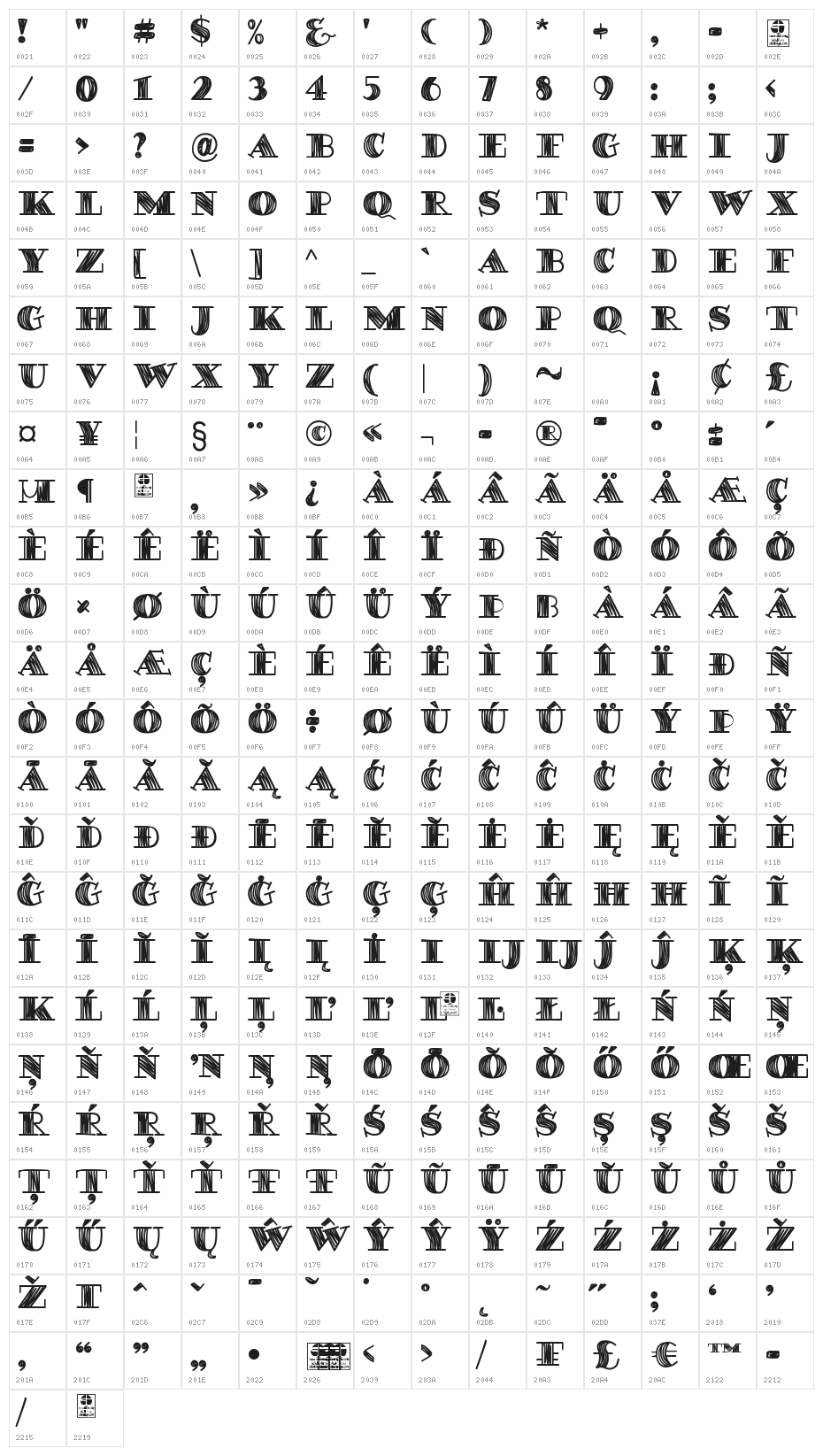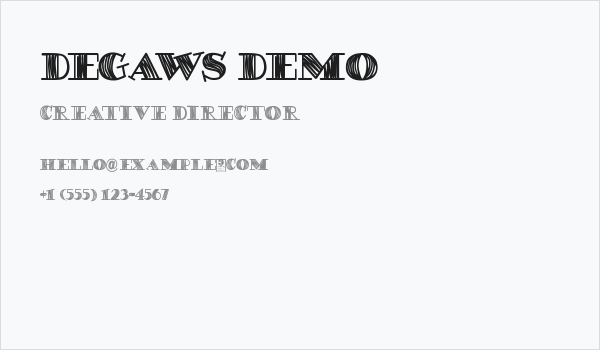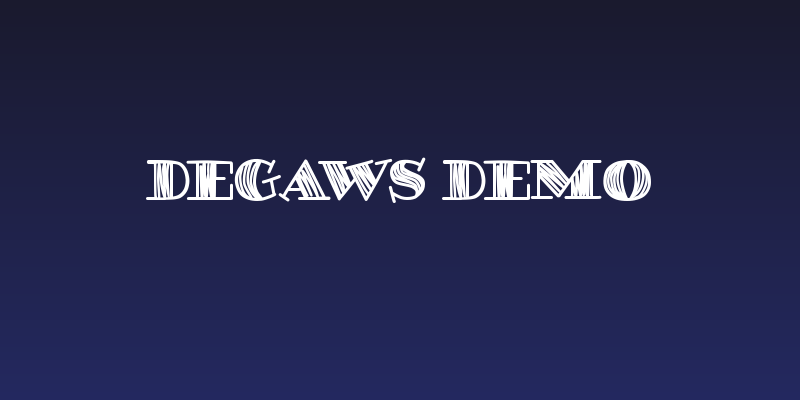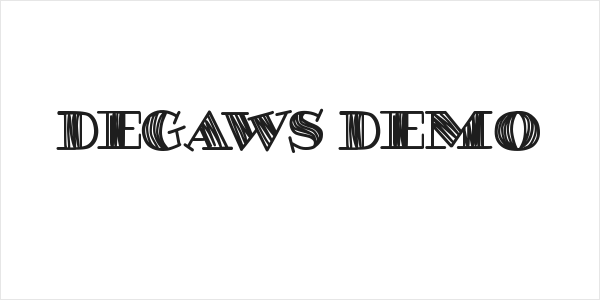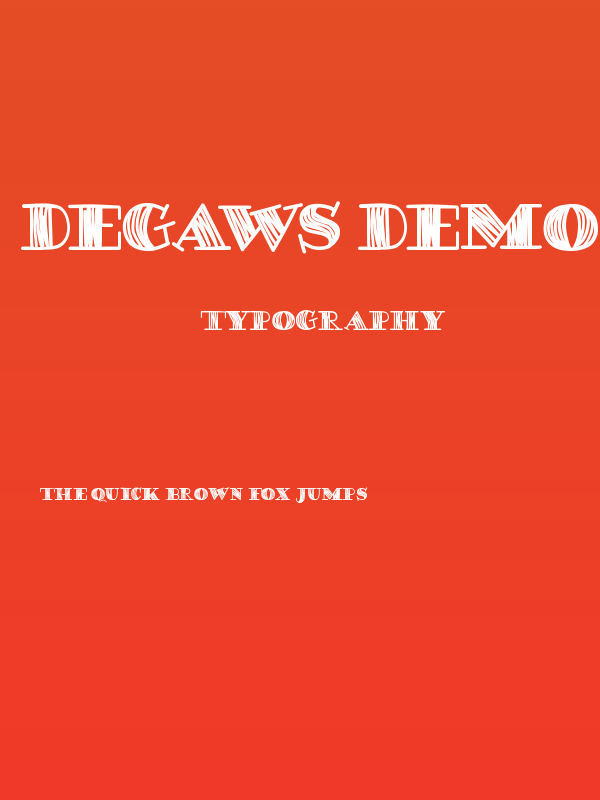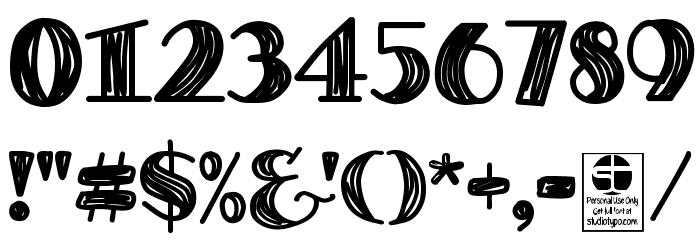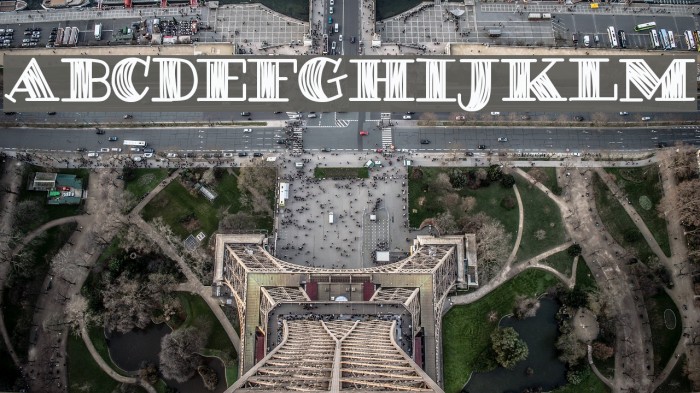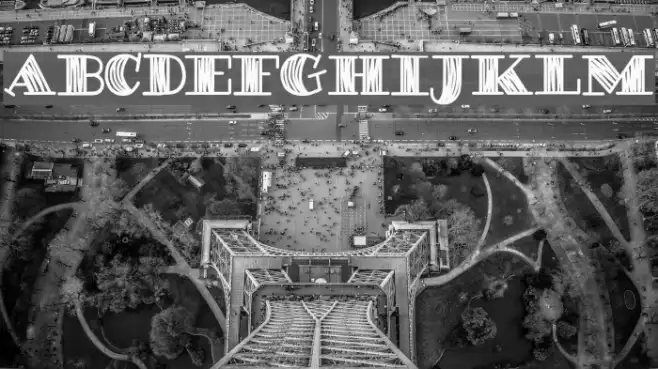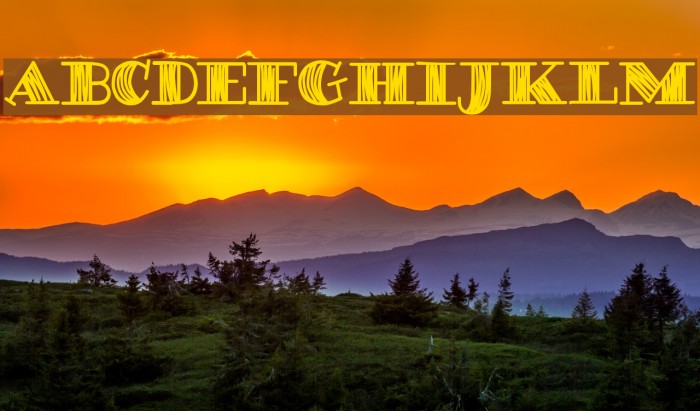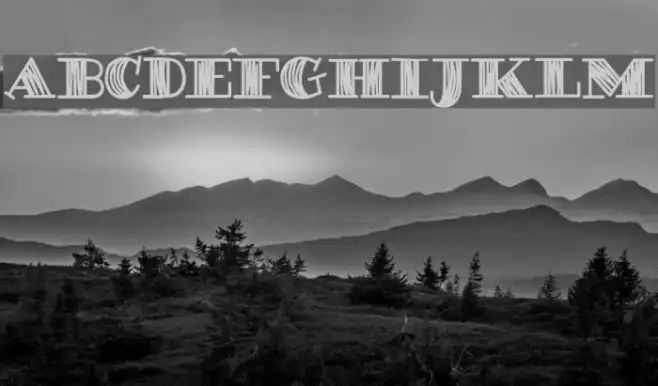
DEGAWS Demo Font
DEGAWS Demo Description
This font features a bold and decorative style with a unique striped pattern running through each character, giving it a dynamic and eye-catching appearance. The uppercase letters are designed with a strong presence, while the lowercase letters maintain the same decorative elements, ensuring consistency throughout. The numerals are equally bold, making them stand out in any design. Special characters are included, each with the same intricate detailing, making this font versatile for various creative projects. The overall design is reminiscent of vintage or retro styles, yet it maintains a modern twist with its bold strokes and decorative flair.
| Overall Style | Vintage, Decorative |
| Proposed Projects | Ideal for posters, branding, headlines, and any project requiring a standout, decorative typeface. |